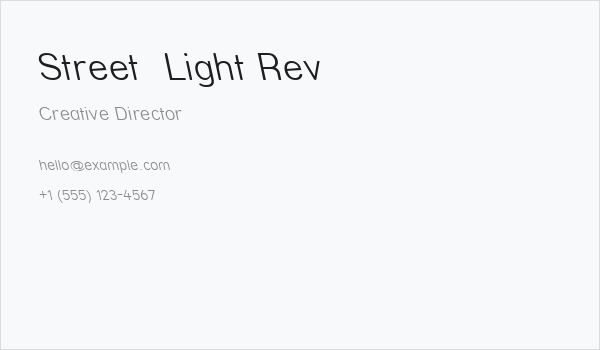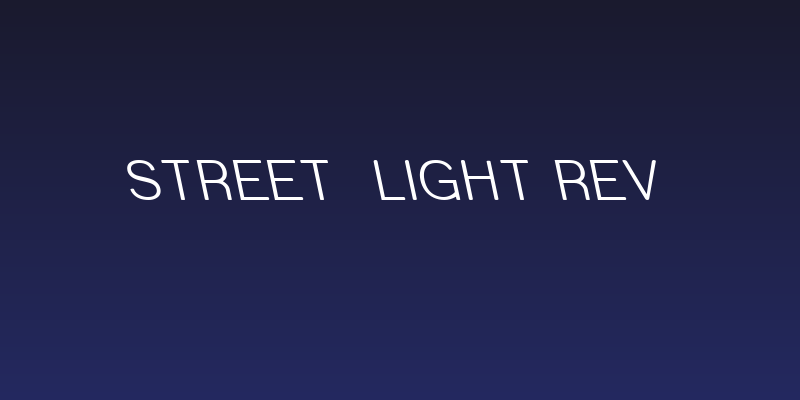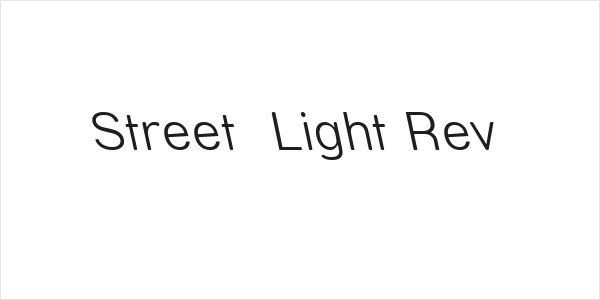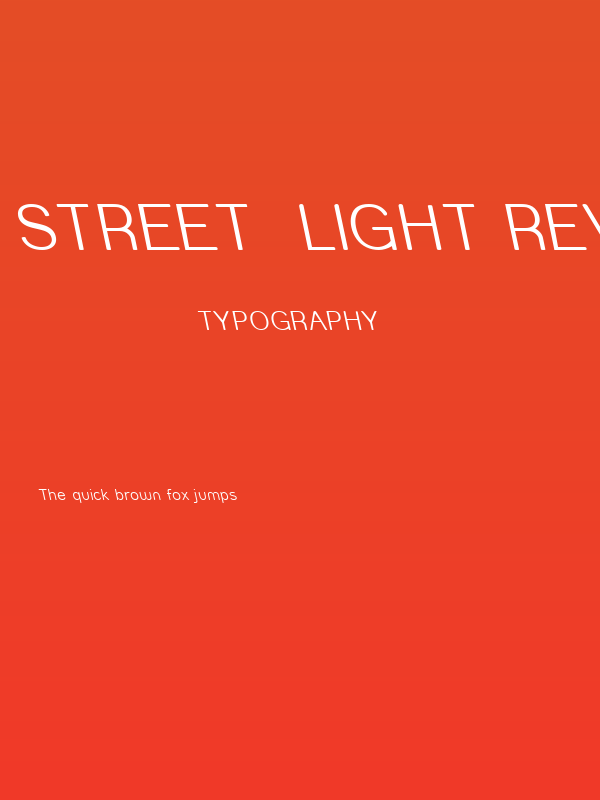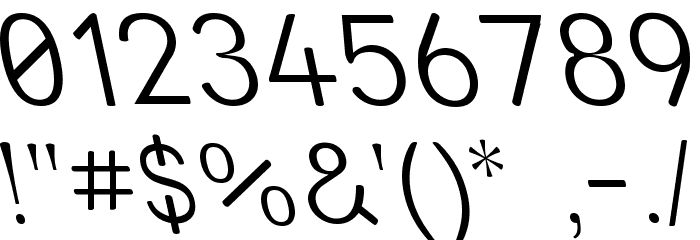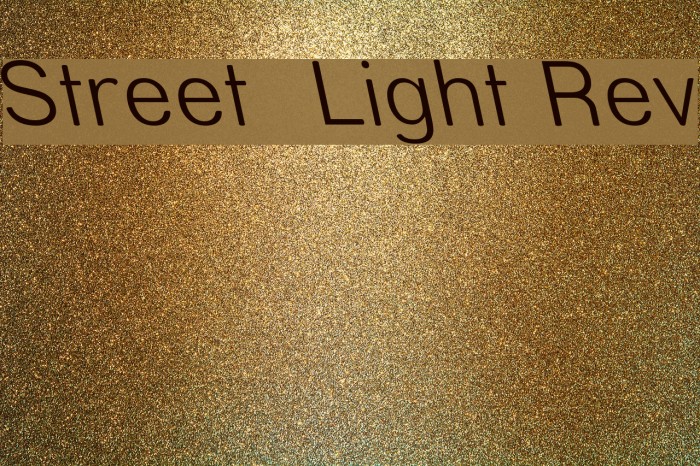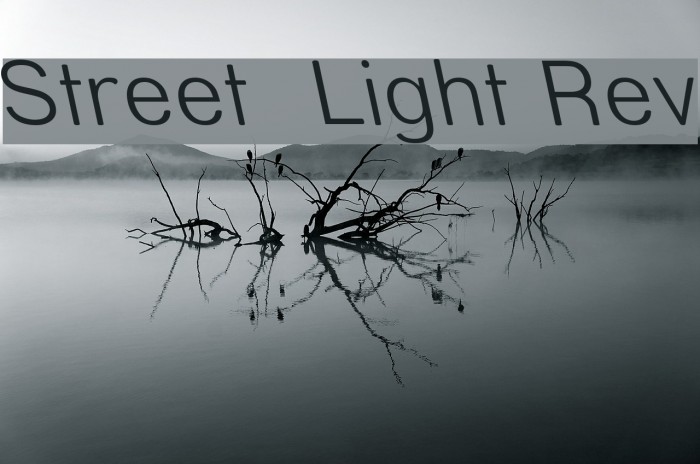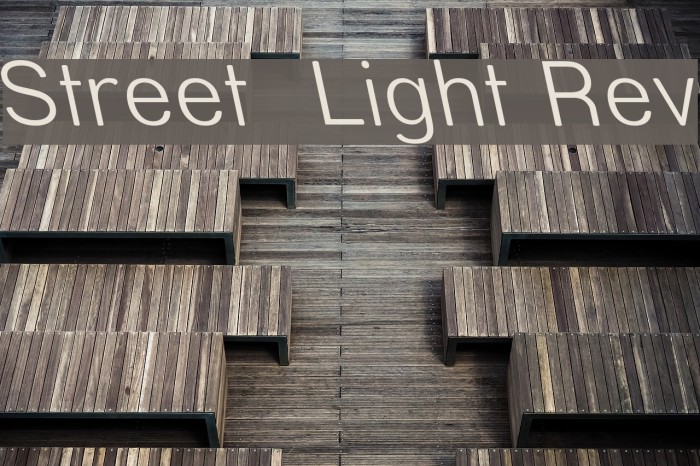
Street Light Rev Font
✎ Sans Serif
Street Light Rev Description
This font exhibits a clean and modern sans-serif style, characterized by its rounded edges and uniform stroke width. The letters are evenly spaced, contributing to its legibility and readability. The design is minimalistic, with a geometric influence that gives it a contemporary feel. The numerals and special characters maintain the same aesthetic, ensuring consistency across all glyphs. This font is versatile, suitable for both digital and print media, and can be used effectively in various design contexts.
| Use Case | Headlines, Body text, Logos |
| Proposed Projects | Ideal for branding, web design, user interfaces, and advertising materials. |